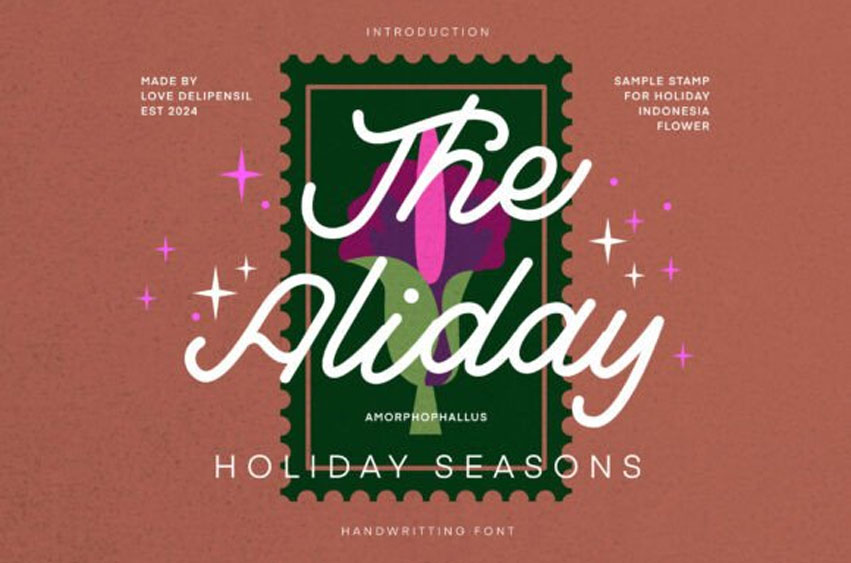
Aliday Font is a cheerful, festive handwritten font that captures the spirit of celebration.
With its playful, flowing letters, it adds a warm and personal touch to any holiday design, making it perfect for greeting cards, invitations, and decorations.